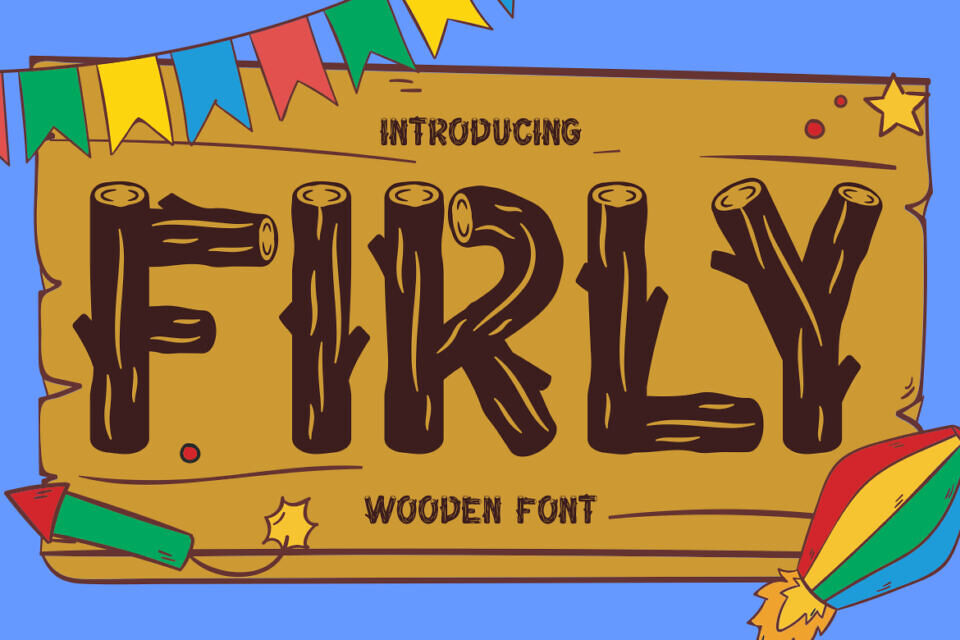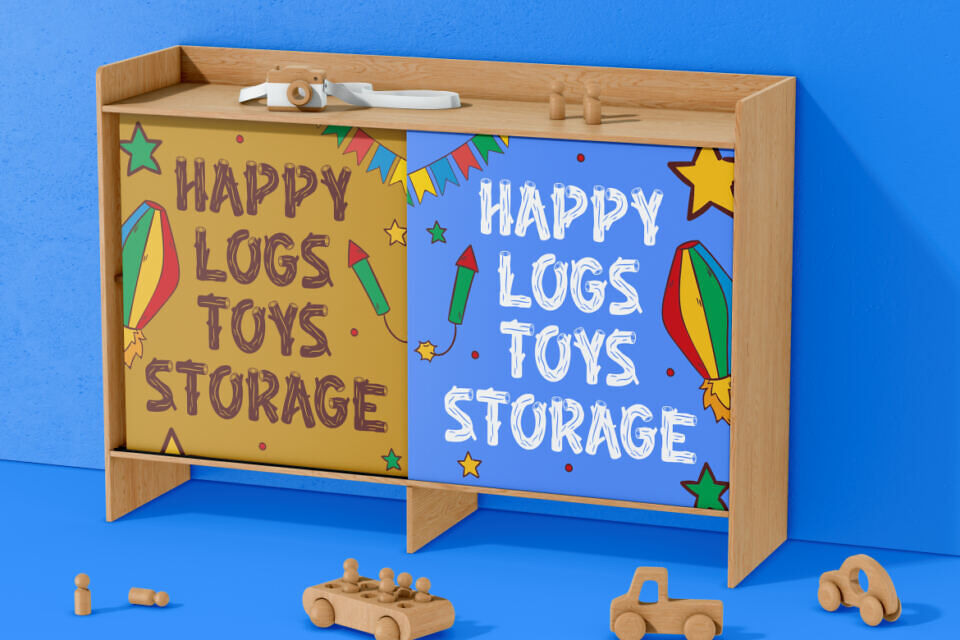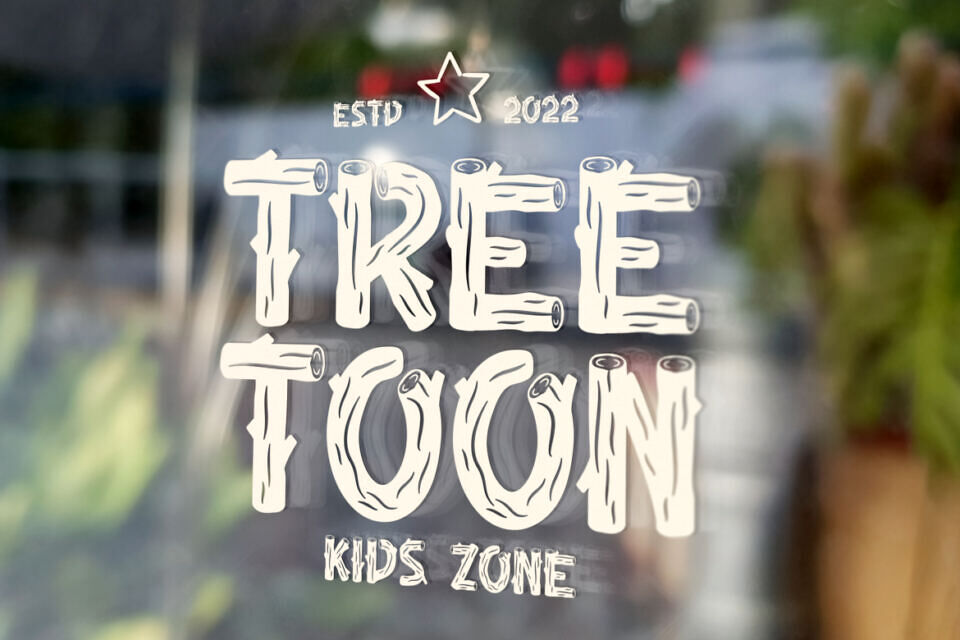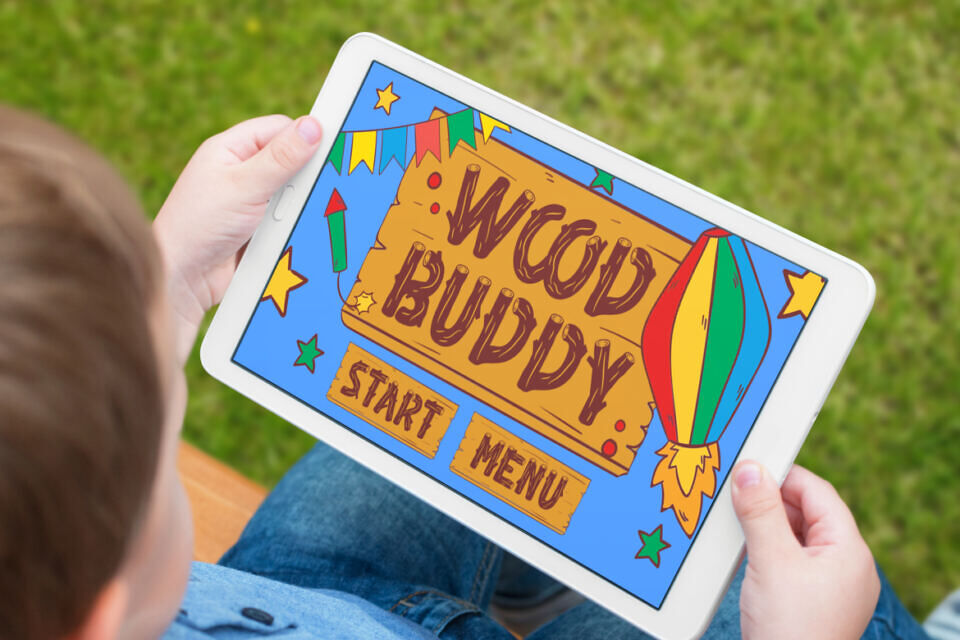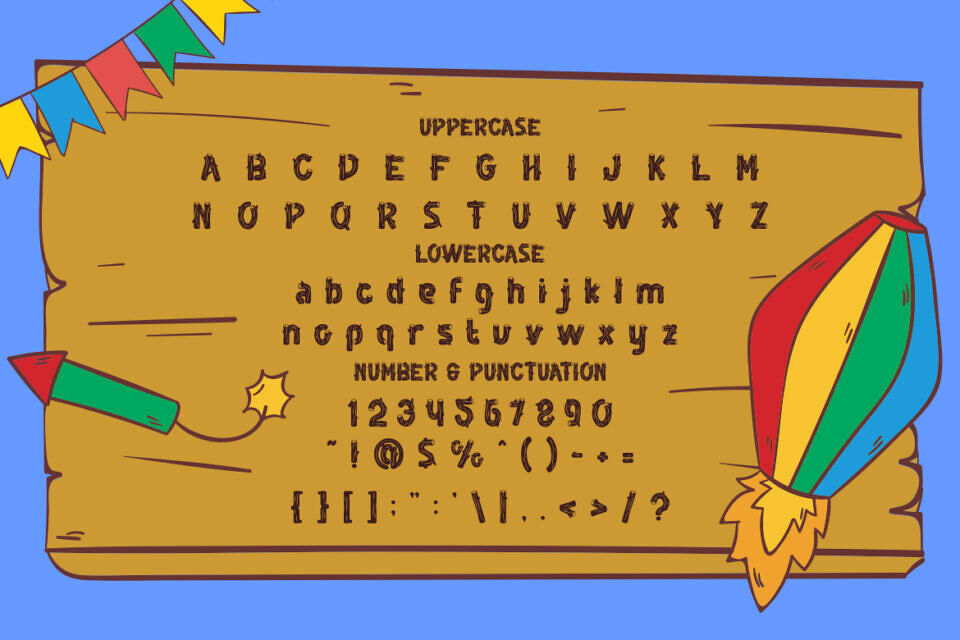
Firly Font
Firly Wooden Font is a charming, child-friendly typeface inspired by natural wood shapes. Its chunky letters and rounded edges create a safe, approachable feel. The font’s subtle, organic details and tall proportions make it ideal for playful brands, kids, and families.
It blends playful and wooden aesthetics, working well for products like toys, learning materials, and food packaging, as well as posters, logos, and digital projects, conveying a sense of trust, joy, and imagination.